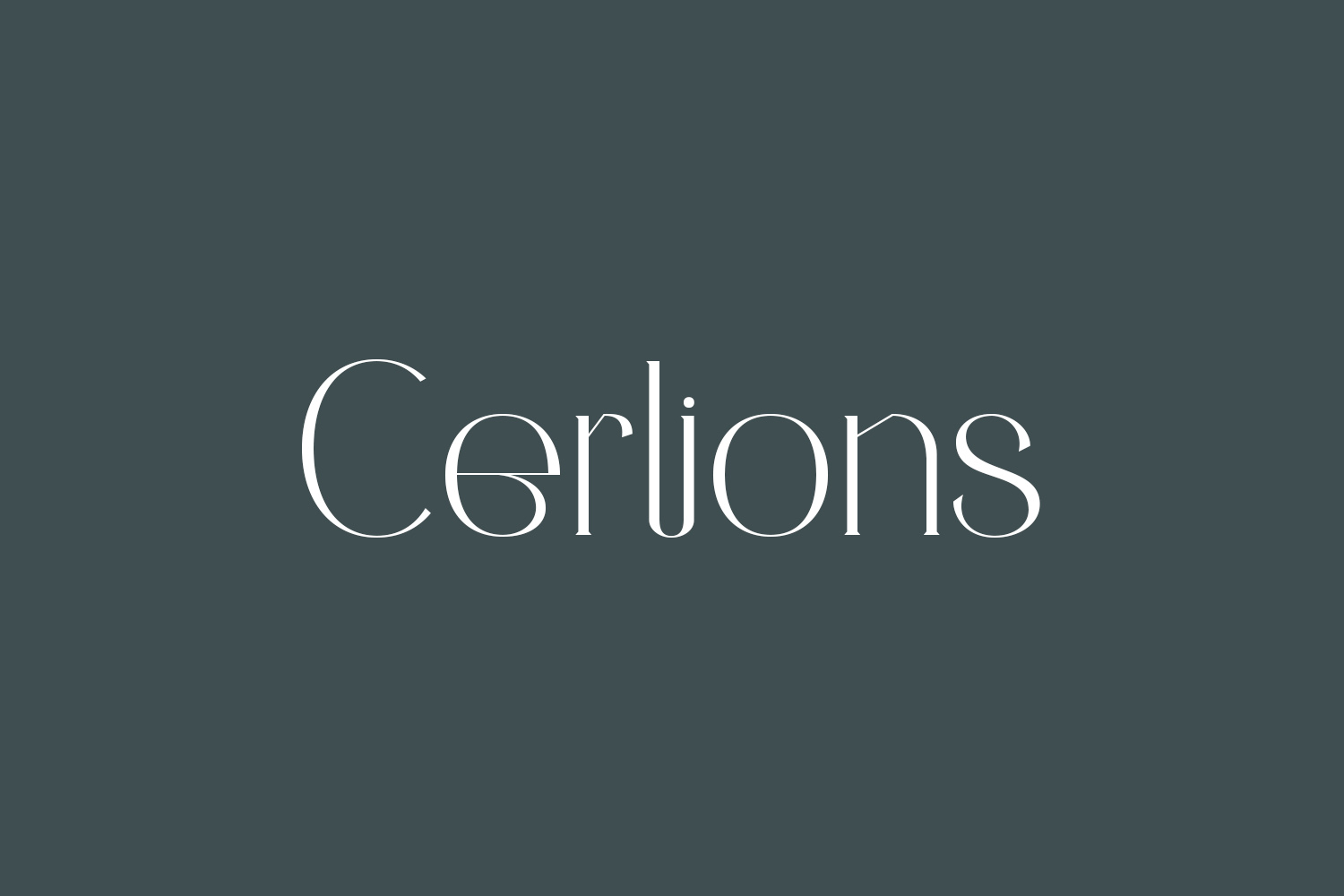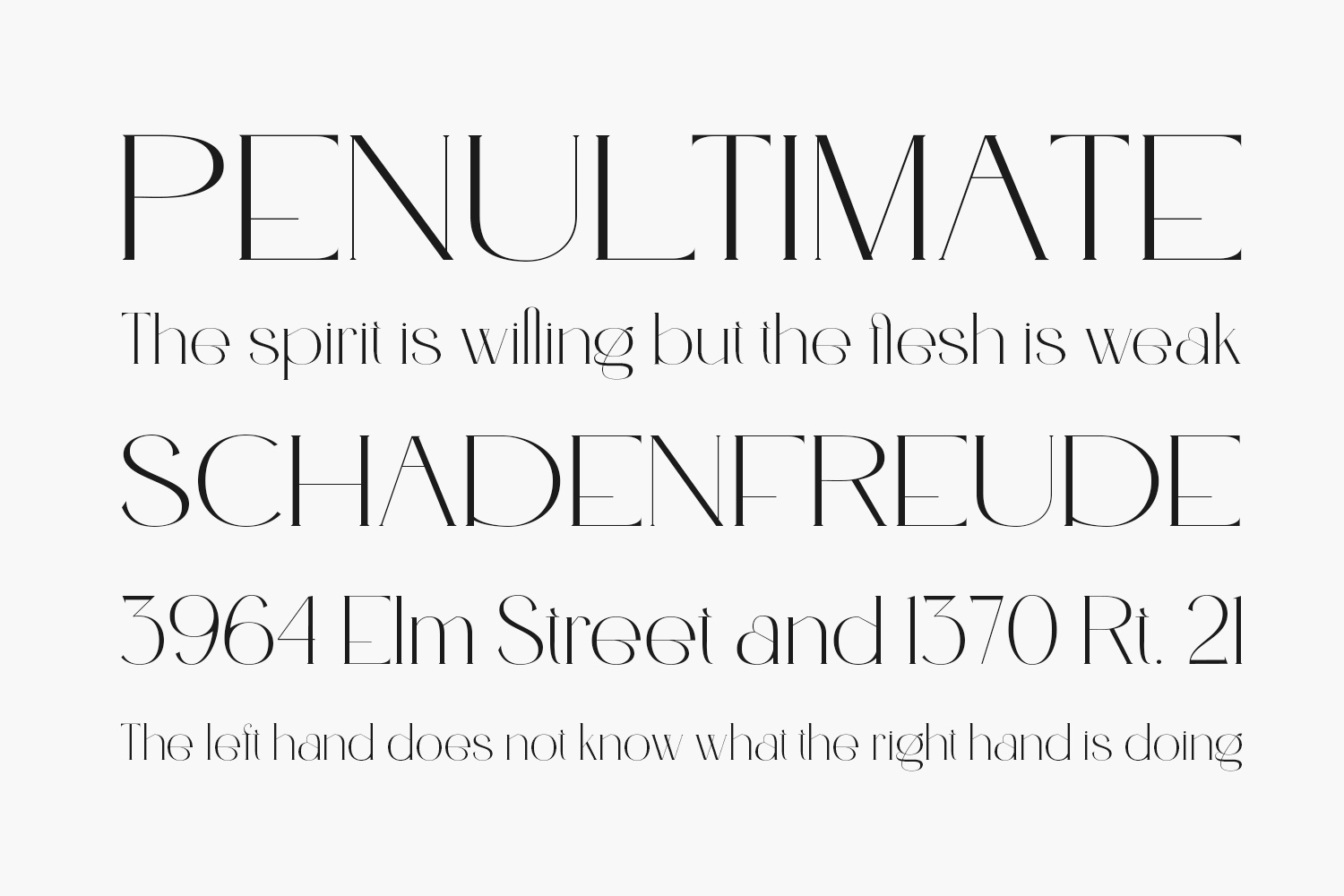
Cerlions Free Font is a delicate, thin lettered, and luxurious serif font. It looks beautiful on a variety of designs requiring a personalized style, such as wedding invitations, thank you cards, weddings, greeting cards, logos, and so on. Cerlions Free Font was designed by BrandSemut and is free for personal use only. Please purchase the full version for commercial use.